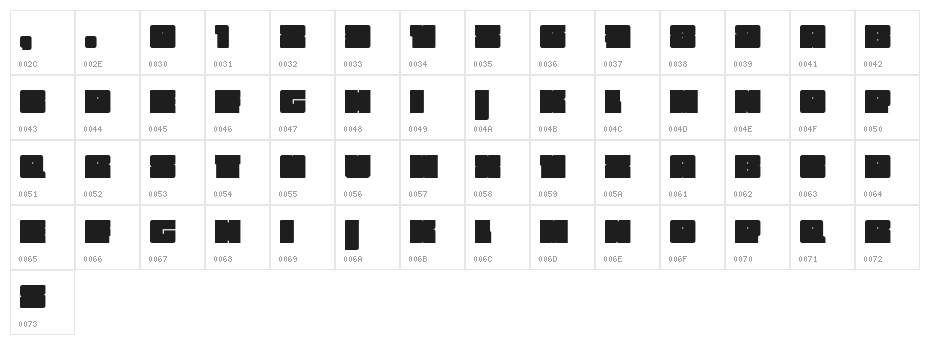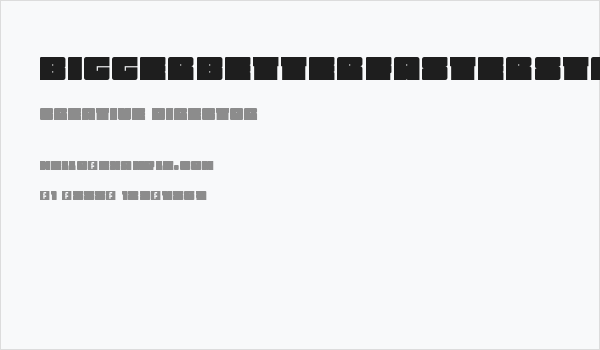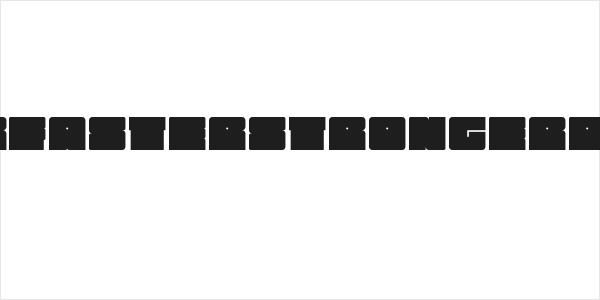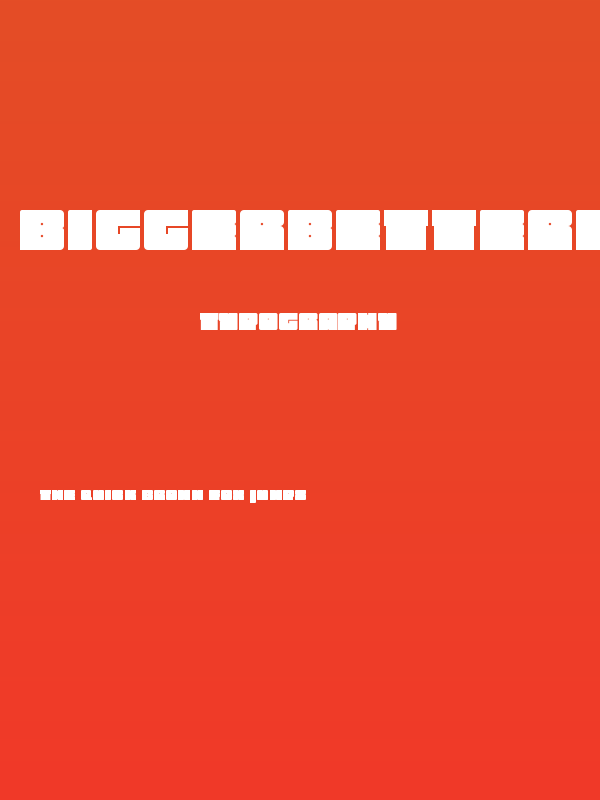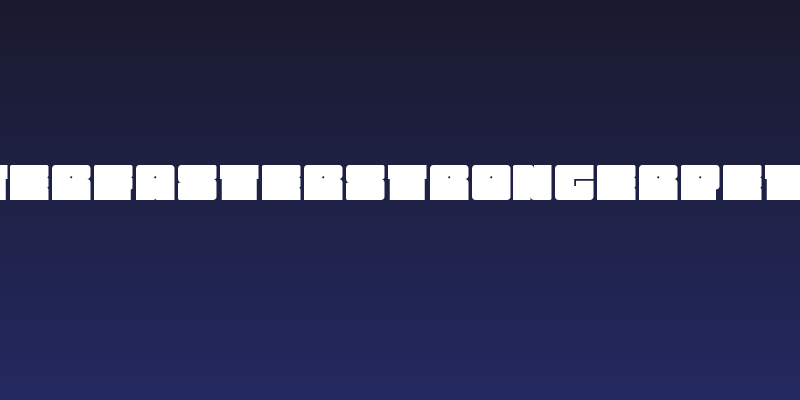
BiggerBetterFasterStrongerPeter Regular Font
BiggerBetterFasterStrongerPeter Regular Description
This font features a bold, geometric design with a strong, block-like appearance. Each character is constructed with thick, uniform strokes, creating a sense of solidity and impact. The edges are sharp and precise, contributing to a modern and industrial aesthetic. The uppercase and lowercase letters maintain a consistent width, enhancing the uniformity of the typeface. The numerals and special characters follow the same design principles, ensuring cohesive visual harmony across all elements. This font's boldness and distinct style make it highly suitable for attention-grabbing applications.
| Proposed Projects | Ideal for posters, headlines, branding, and any design requiring a strong visual impact. |